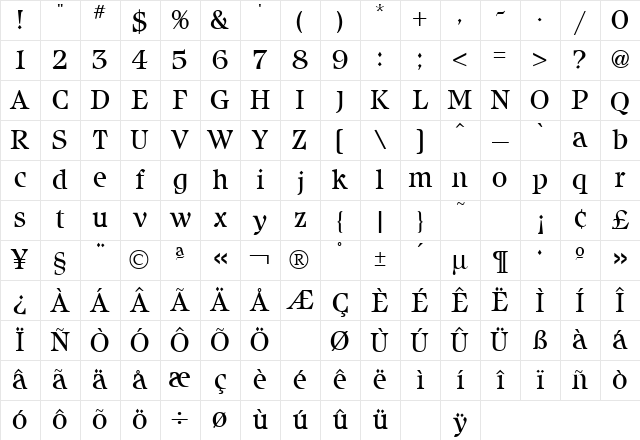
Isbell Regular Free Font
Isbell Regular
Isbell Family
Design Context for Isbell
Isbell is a composed and adaptable typeface that performs quietly and consistently across a wide range of design contexts.